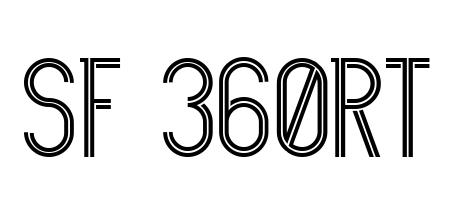
SF 360RT
SF 360RT boasts a clean, modern sans-serif aesthetic. Its lines are sharp and precise, giving it a geometric feel. The consistent weight throughout the characters contributes to its readability and uncluttered appearance. The slightly condensed spacing enhances a sense of efficiency and precision. The overall impression is one of streamlined sophistication.